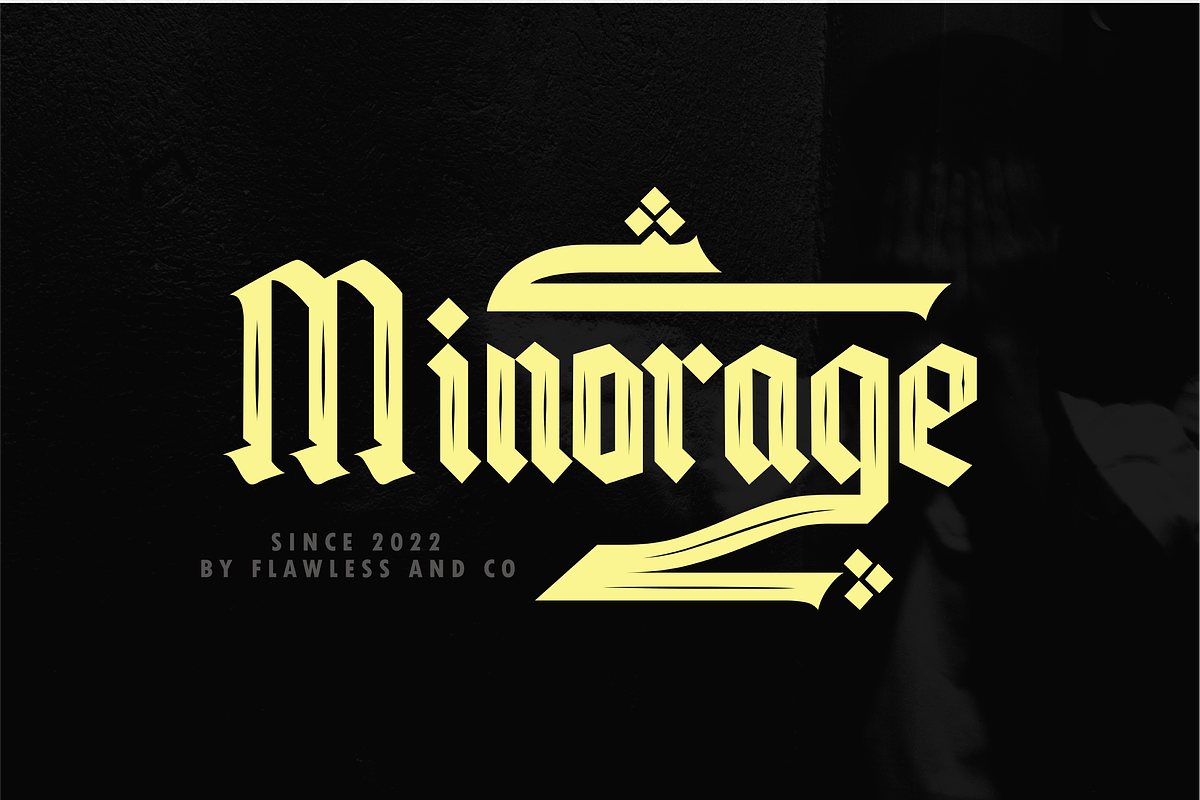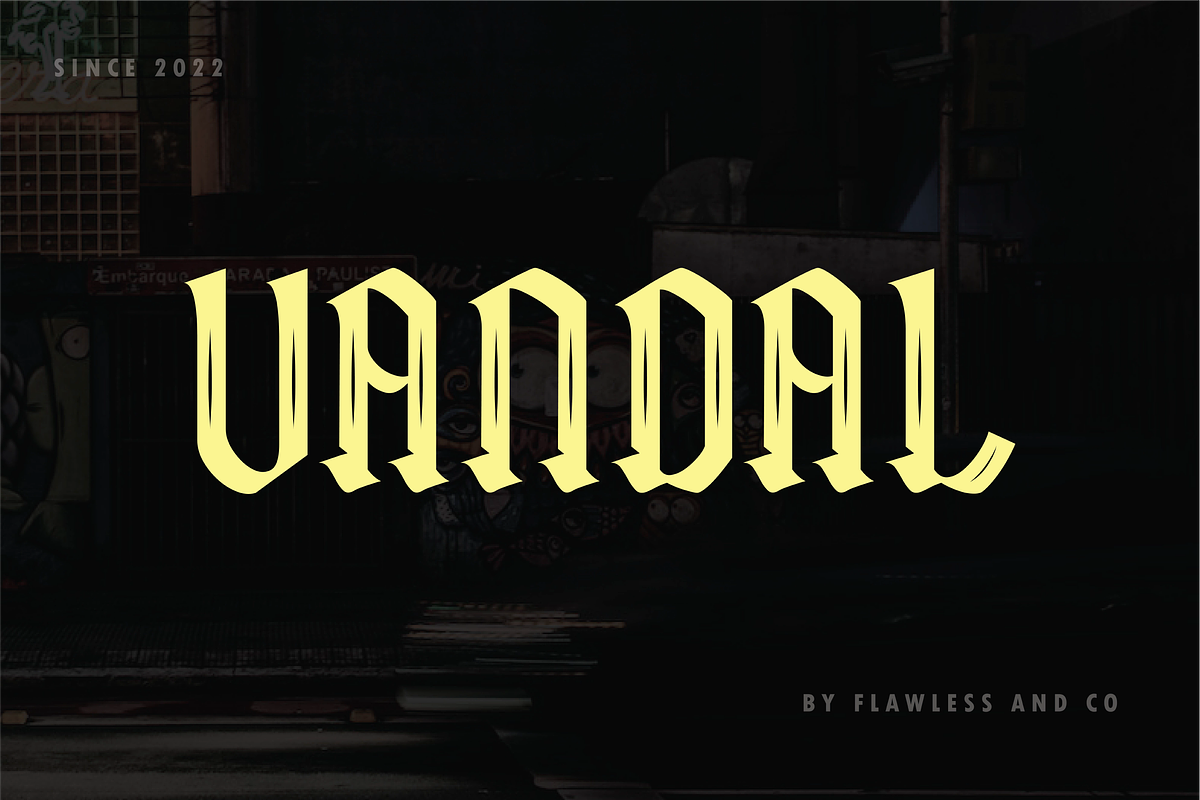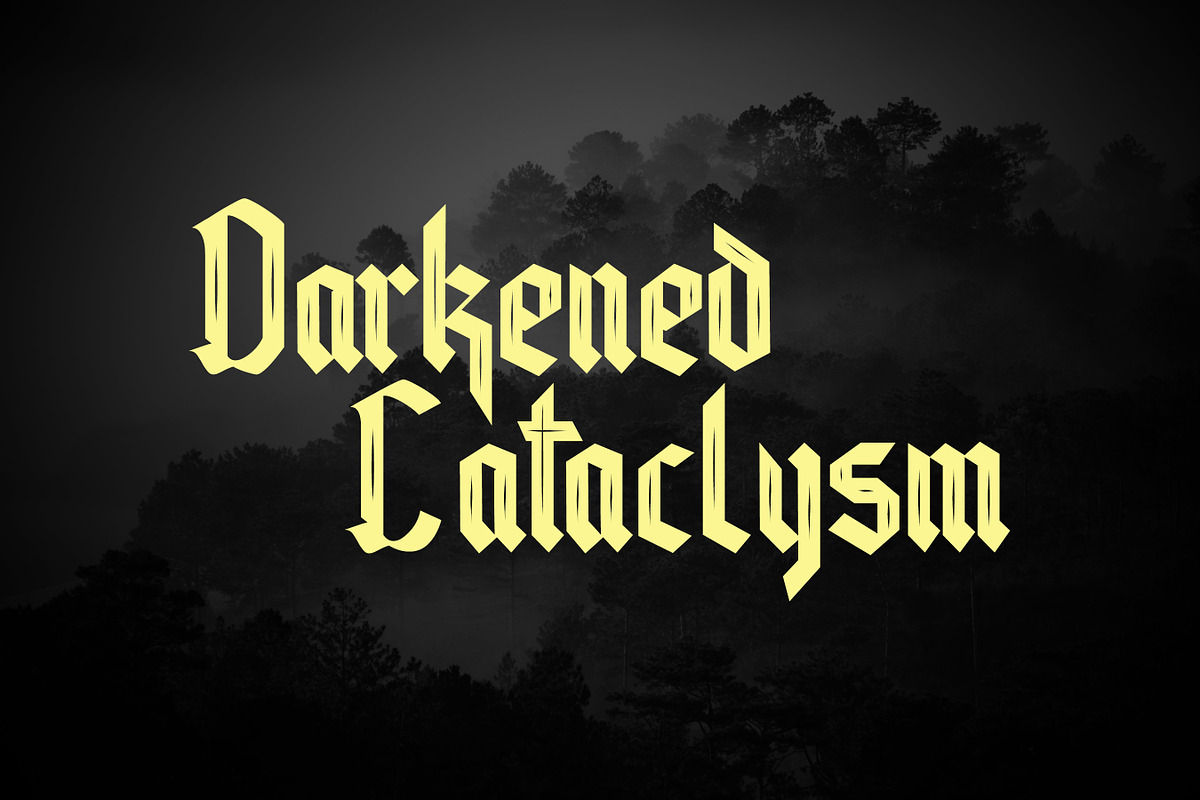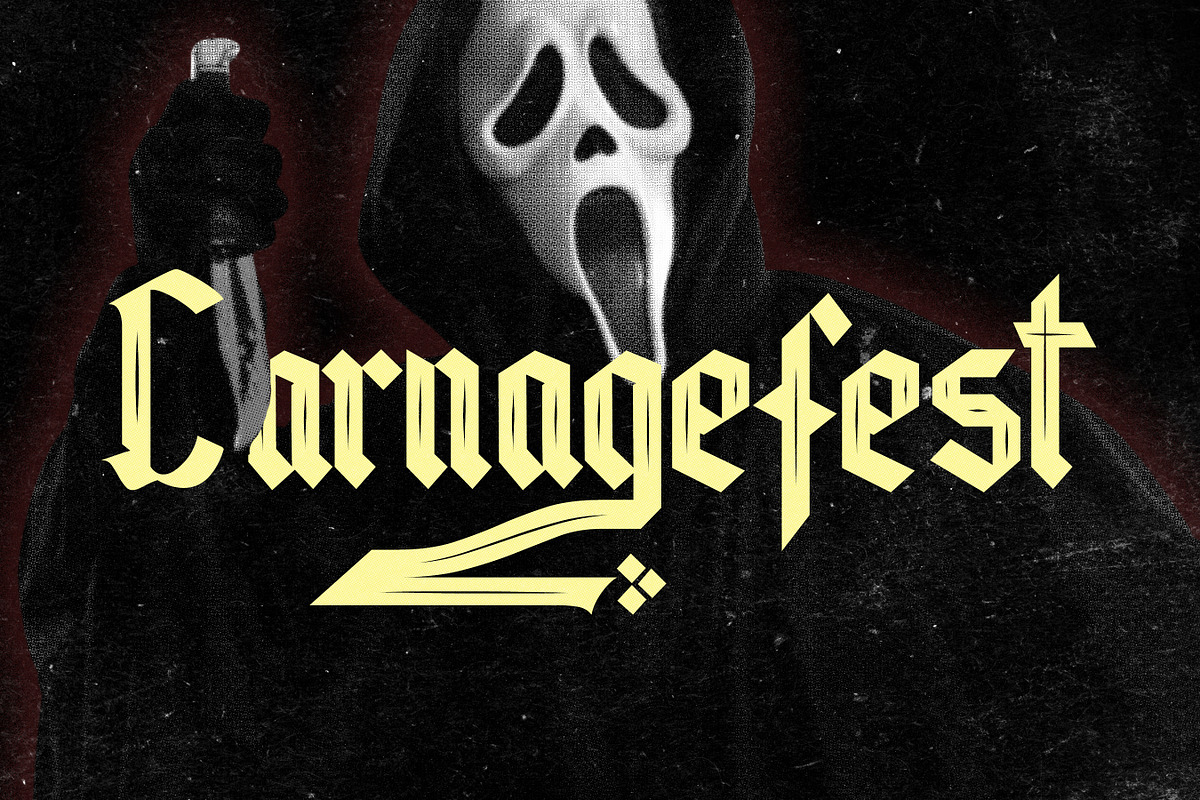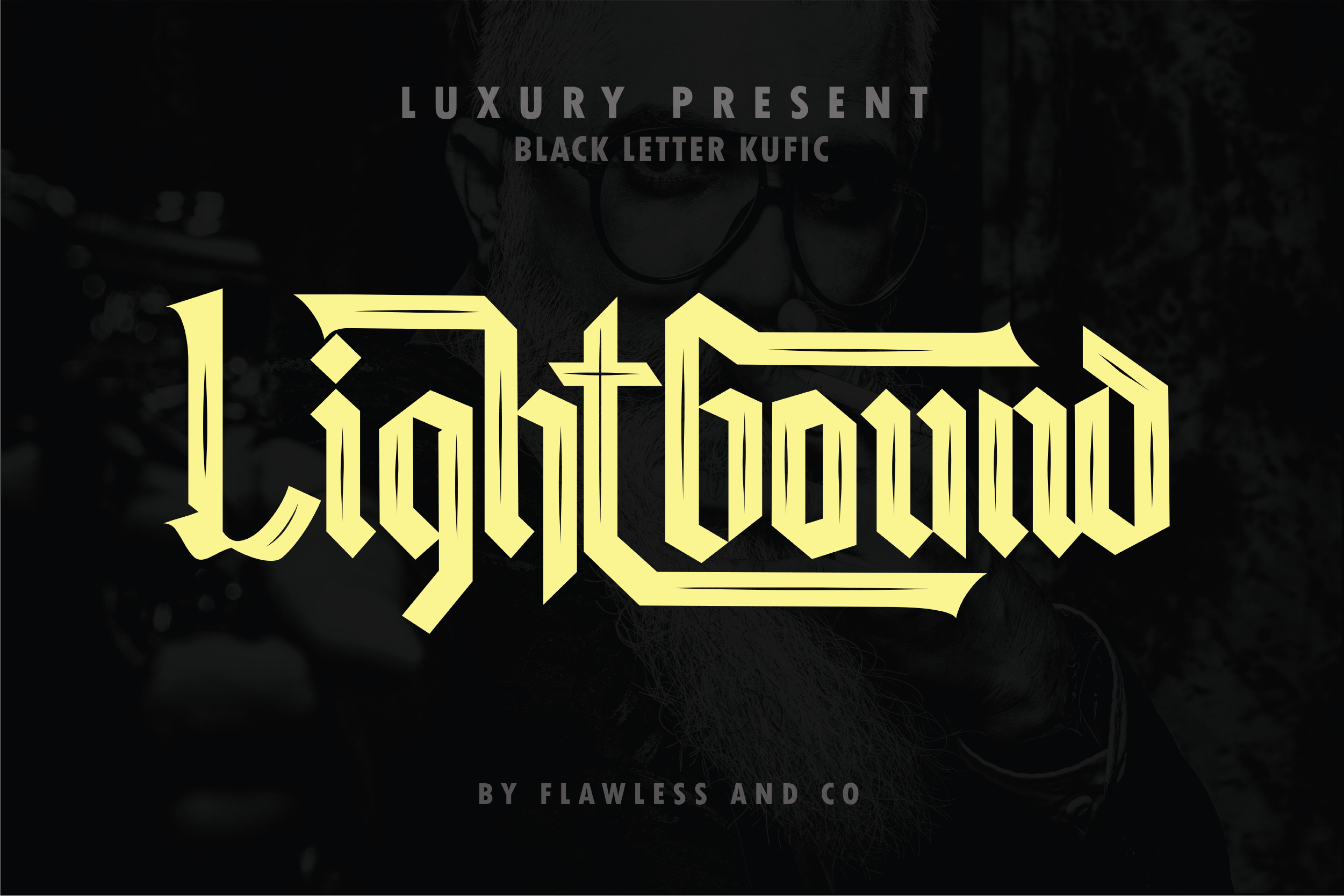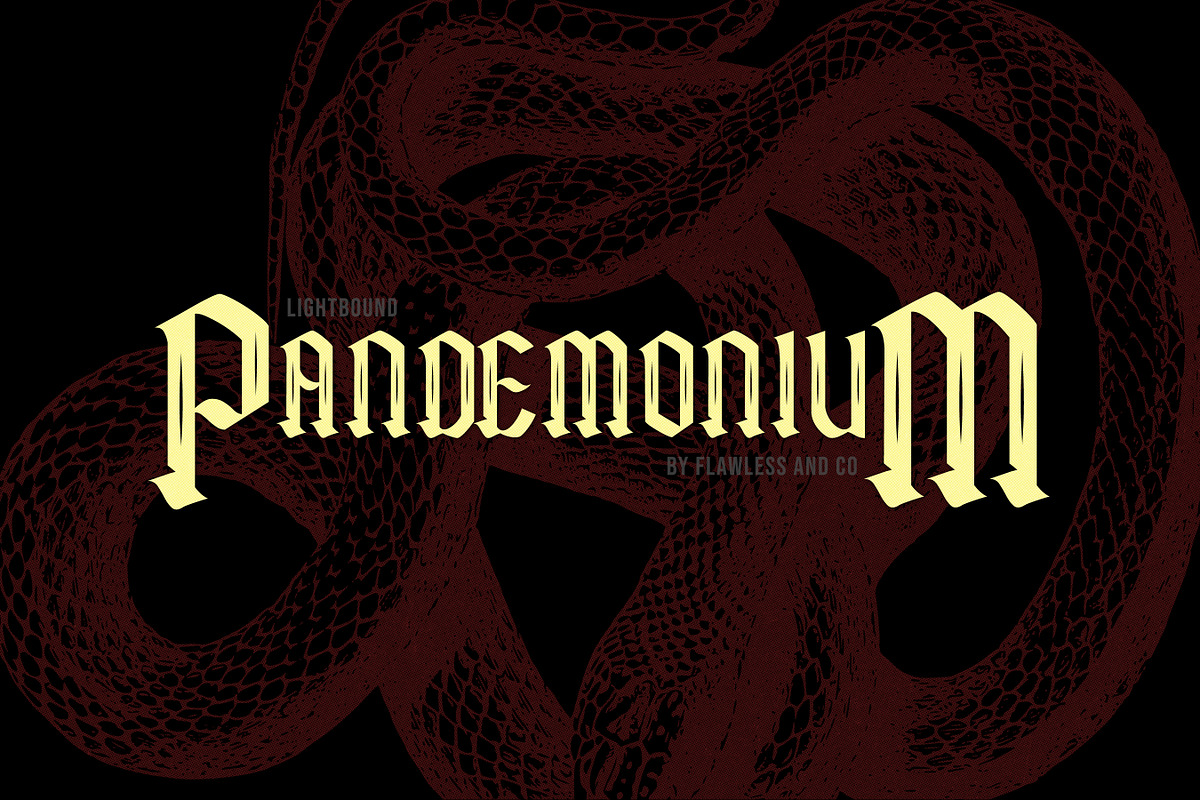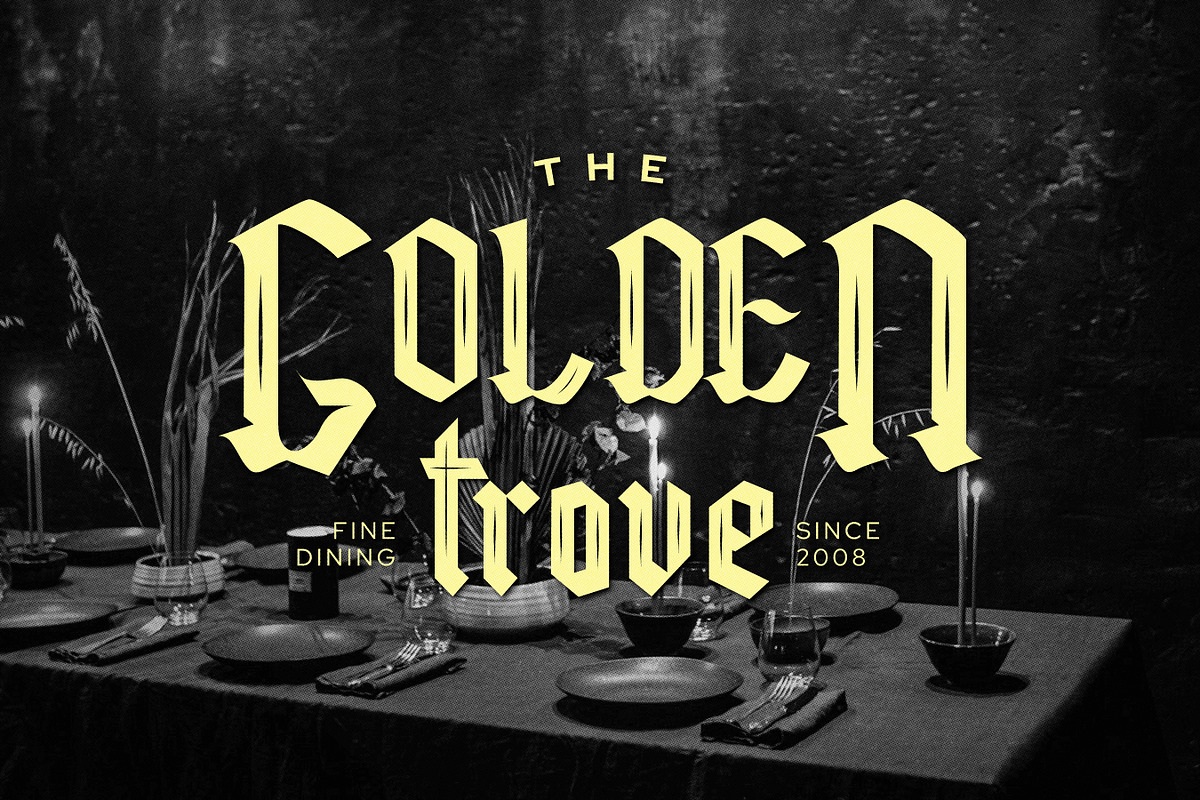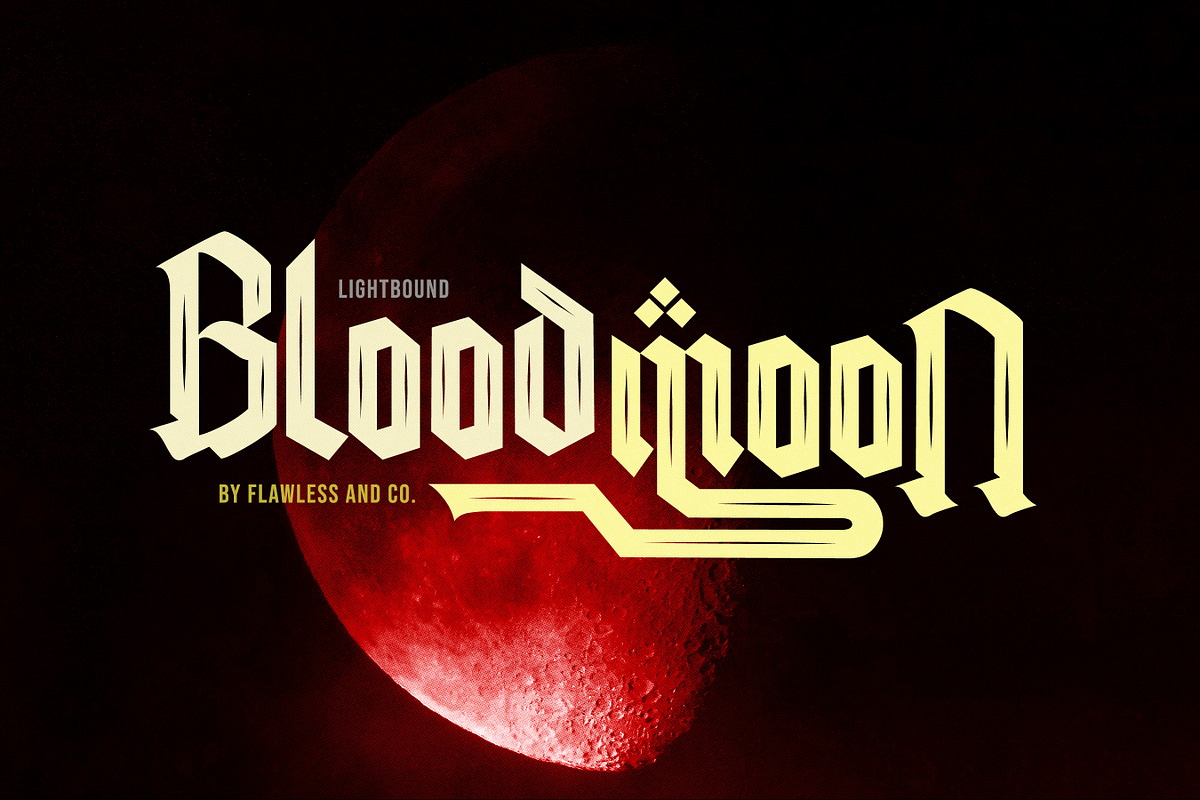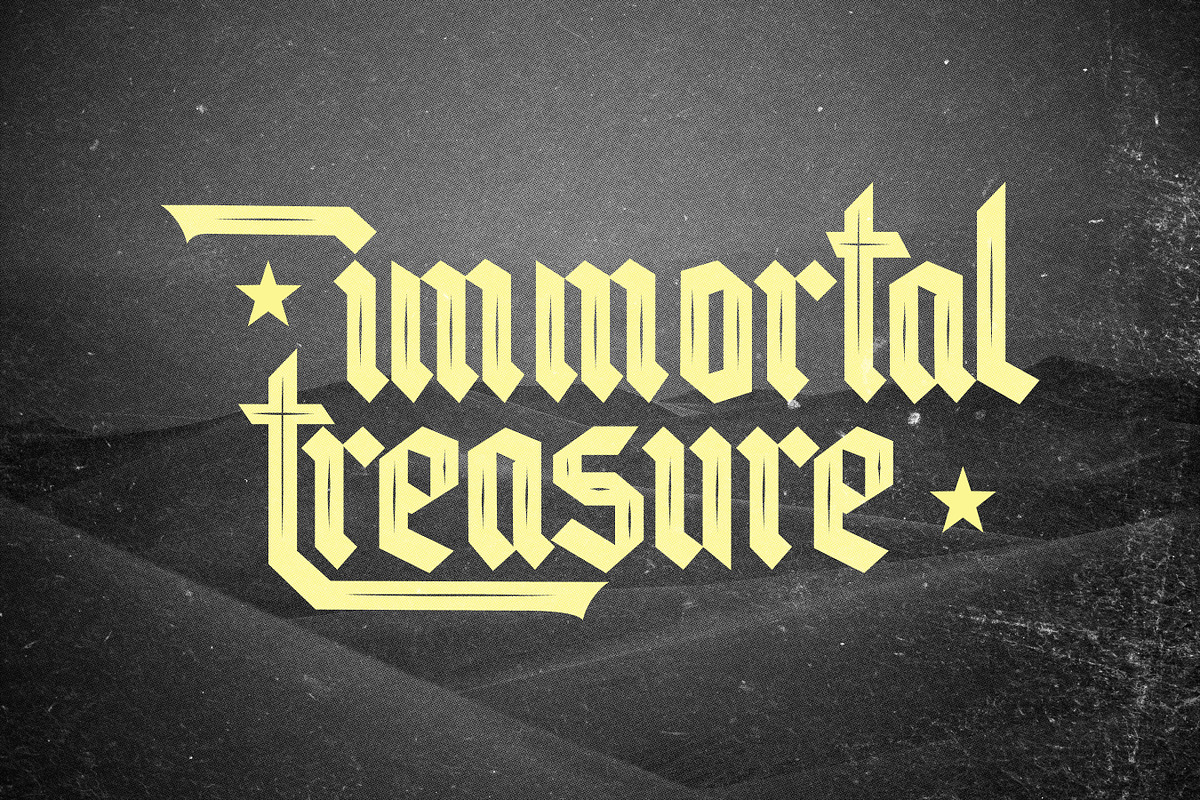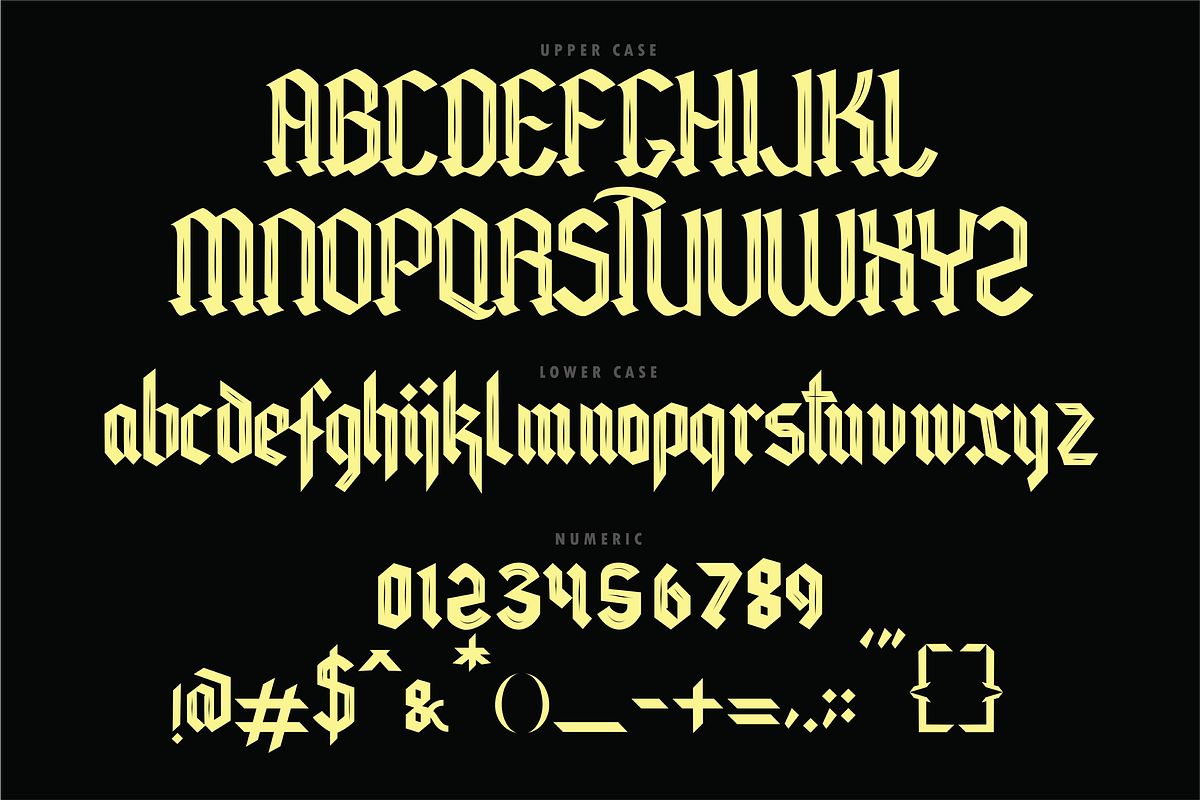
Lightbound - Blackletter Kufic Font
Introducing "Lightbound" - an exquisite blackletter Kufic typeface that fuses ancient calligraphic traditions with a contemporary twist. Inspired by the elegance and geometric precision of Kufic script, Lightbond brings a sense of mystique and cultural richness to your designs. This font is suitable for branding, business, logos, magazines, and others.
Multilingual Uppercase alphabet A-Z Lowercase alphabet a-z Alternate Character Numbers 0-9 Some punctuation